Serif, Sans, Script & Slab: 4 Font Types Explained
Always wanted to know the difference between serif, sans, script, and slab fonts? Look no further. Take your typography game to the next level, and quit guessing if certain typefaces or font pairs work together. Back your logic with a little design theory!
Having a better knowledge of fonts and typography can make explaining your choices to clients easier (always a bonus), and will give you more confidence when selecting font pairs. Here’s a primer (or refresher) on four common font types and how to use them in your design projects.
1. Serif
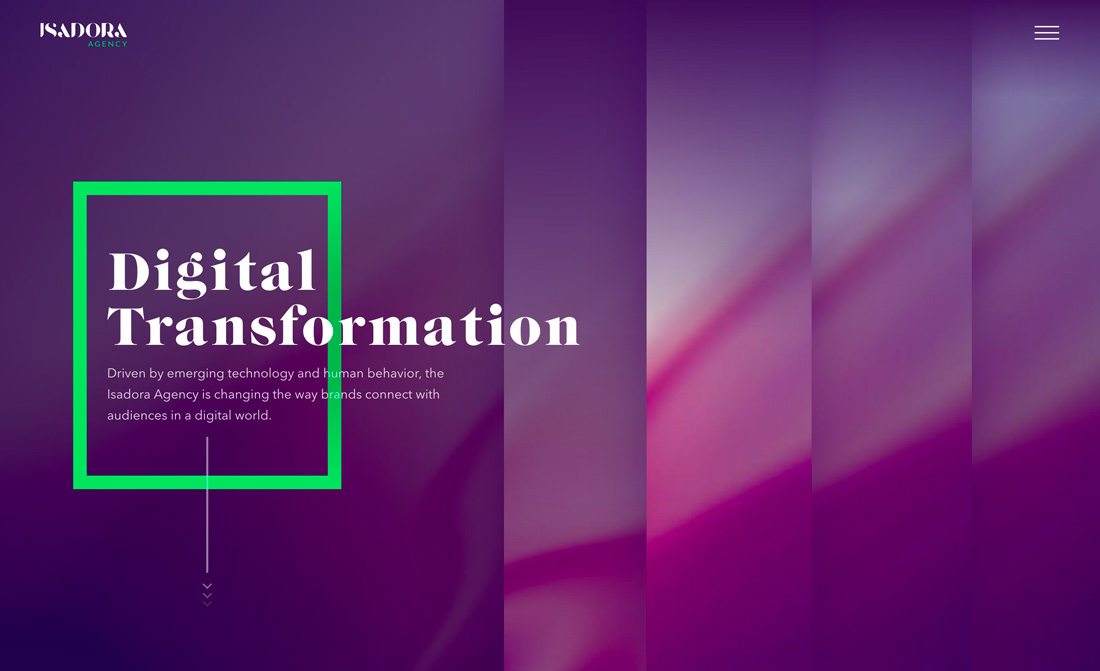
Serif typefaces are arguably the most traditional category of type. The style is common with typesetting in books and newspapers and is often used in long blocks of text.
For a while, many web designers stayed away from using serif typefaces because they worried that the look wasn’t readable online. This is no longer the case, thanks to high definition screens that show every detail.
Regardless, use of serif typefaces isn’t near as common as the sans option. In most instances where serif typefaces are used, they complement a sans serif option that is used for most of the text on the screen.
Serif typefaces can be identified by small divots on the ends of letterforms. These small strokes can be short or long, straight or angled or have varying weights.
Serif typefaces are often grouped into a handful of subcategories based on the time period in which the style was originally created – old style, modern and transitional.
Old style serifs have a rounded shape with uniform stroke widths. Each letter of a modern serif has thick and thin stroke widths. Transitional serifs are a combination of the two aforementioned styles and are an almost default serif style for many designers.
- Best for: Display or body text
- Avoid: Stacking too many serifs unless you are looking for an old-style feel
- Pair with: A simple sans serif
- Popular choices (from Google Fonts): Merriweather, Playfair Display, Arvo
2. Sans Serif
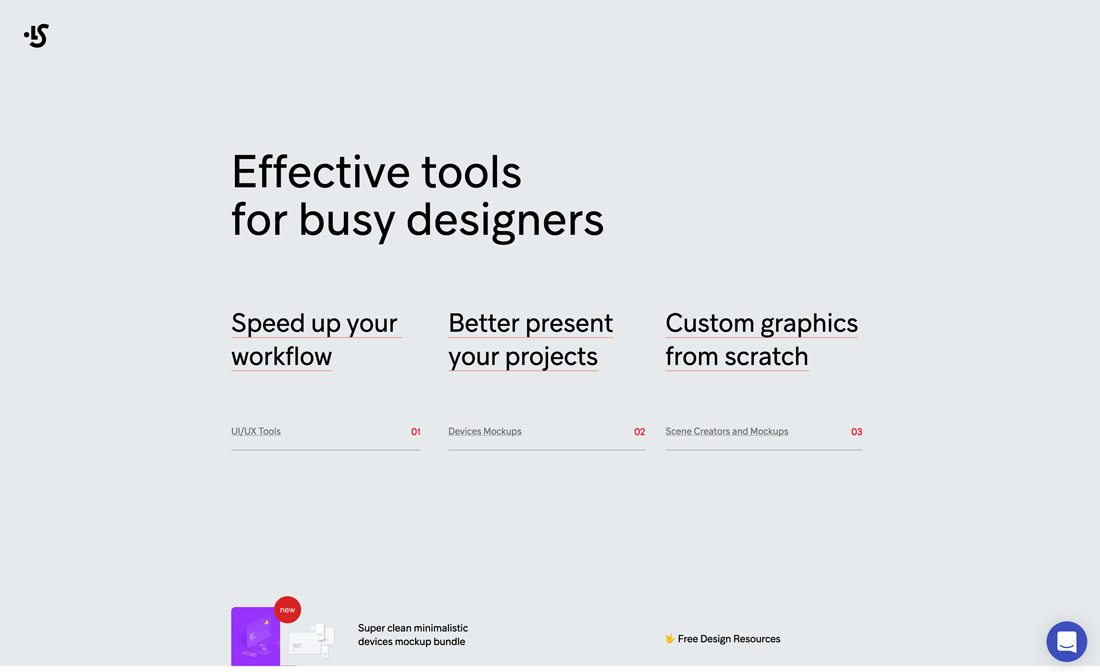
Sans serif typefaces lack any embellishment on the ends of letterforms, taking on a more simple shape. But don’t think that because there is a lack of adornment on letters, sans serifs are boring. They are anything but.
Sans serif styles can have letters that are thick or thin, short or tall, fat or condensed.
This style of type has been used pretty dominantly in website design due to its versatility. Sans serif typefaces are universally accepted by most designers and can almost take on the personality of the design where they are used. (Just think of how many times you’ve seen Helvetica, and how vastly different those projects have been.)
- Best for: Display or body text
- Avoid: Super thin options because they can be hard to read
- Pair with: Any other font style
- Popular choices: Roboto, Open Sans, Raleway
3. Script
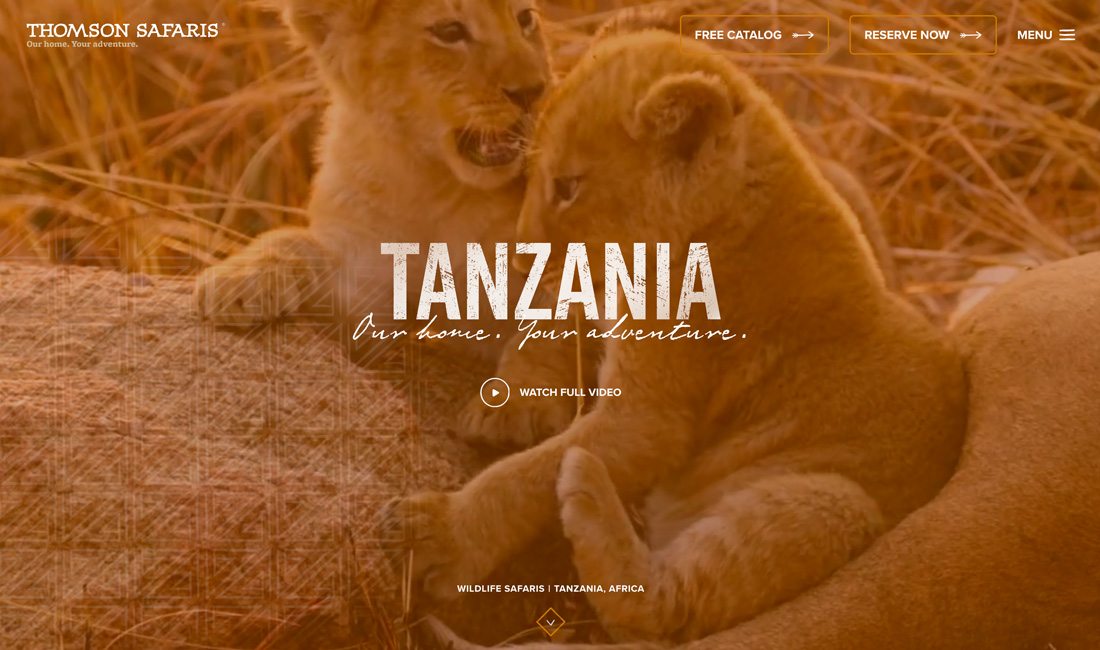
Script typefaces are one of the least commonly seen styles in website design, and for good reason: Scripts tend to evoke distinct emotions with users and can often be difficult to read.
Most script typefaces can be identified by the curve of letterforms and connecting strokes, which imitate cursive handwriting. Many designers refer to scripts as a class of “handwriting” fonts.
While many people assume scripts have a feminine touch, that’s not always the case. Scripts with thicker or harsher strokes can actually feel more masculine. Much of the association actually depends on surrounding design elements.
The biggest concern with script typefaces is readability. Scripts are not easy to scan and are exceptionally difficult to read at smaller sizes or in compacted space (such as large blocks of text).
- Best for: Display with only a few words
- Avoid: Using in large blocks of text
- Pair with: A sans serif
- Popular choices: Pacifico, Lobster, Sacramento
4. Slab
Slab typefaces are interesting. There was a time when slabs were a subset of serif typefaces, but that has changed, and slab fonts refer to almost any style of typeface with super thick stroke weights for all of the letters.
These heavy typefaces are almost always used for display type and large headlines. They are bold and almost scream at the user.
This type style is common in advertising and for websites when the message is short and distinct. Slabs can be overwhelming and difficult to read if too many letters are used because of the weight and size. This type style can also be used for design elements such as drop caps and small single-letter applications as well.
The fun thing about slab typefaces is that because of thick stroke weights, there are a lot of things you can do with them. Slab typefaces are perfect for inline styles, color fonts, filling letters with images or creating a transparent word over an image. Thick letterforms make these applications more usable, and readable, in a way that doesn’t work so well with other font styles.
Conclusion
The biggest mistakes designers make when working with fonts is using too many typefaces or using typefaces that are too similar. Most great type pairings include two type families from different categories – pick from two of the options above. Pick typefaces with plenty of options and assign a distinct role for each typeface in the design.
Look for typefaces with similar shapes and slants for pairings that work together like a charm. And don’t be afraid to experiment with plenty of options to get just the mood you need for each project.